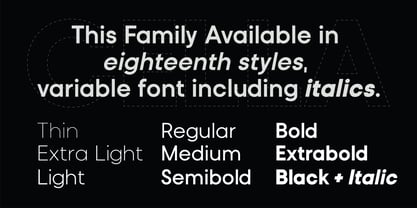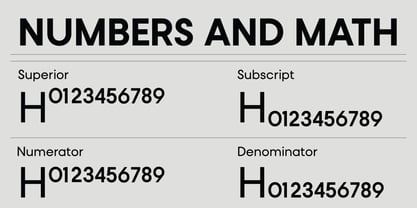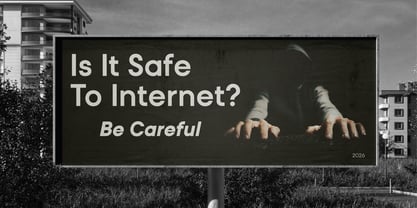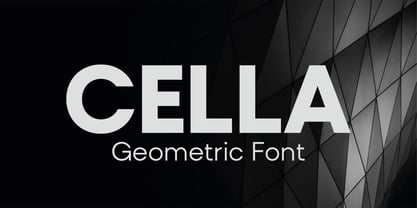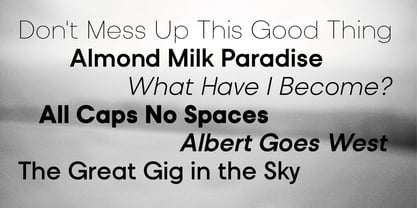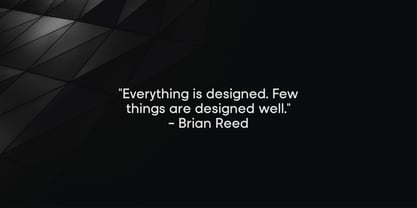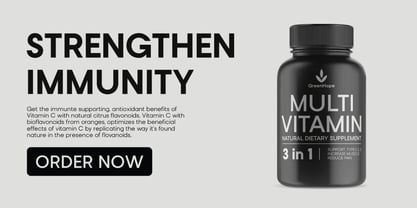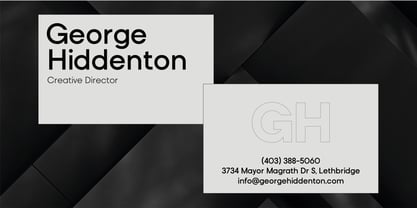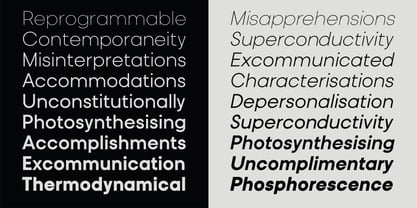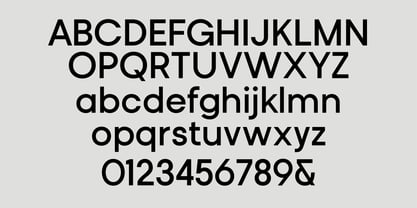
Cella
by Waftype
The Cella Font Family was designed by Wafi Zimamul and published by Waftype. Cella contains 18 styles and family package options. More about this family
Cella™ is a geometric typeface built on the principle that form follows function. Featuring clean shapes, balanced proportions, and modern simplicity, it is designed for branding, editorial, digital, and print projects. The family includes 18 styles, with 9 weights and matching italics, offering flexibility, clarity, and a strong contemporary character.
Designers: Wafi Zimamul
Foundry: Waftype